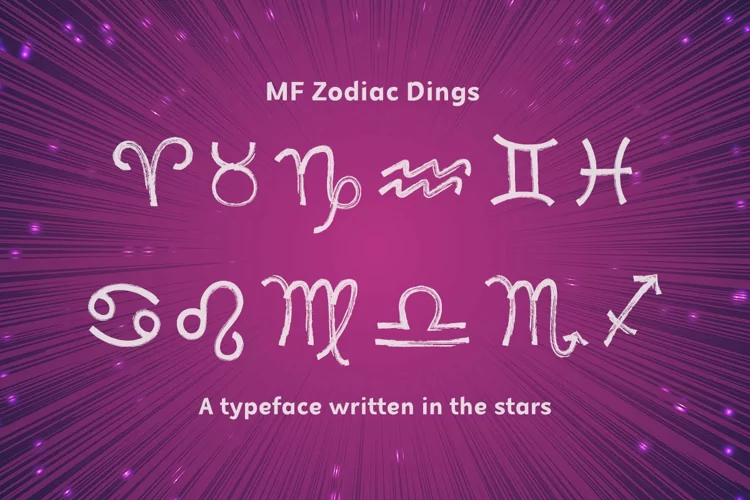
MF Zodiac Dings is a fun dingbats font with 4 hand-drawn versions of the 12 astrological signs. Perfect for astrology websites, books, and products. Create awesome zodiac-themed sublimation projects with ease!
MF Zodiac Dings